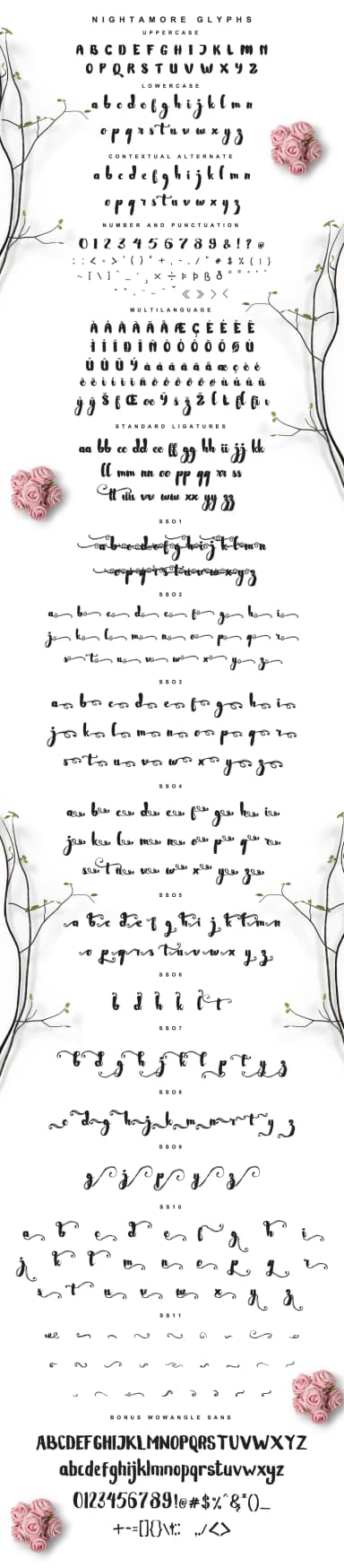
Nightamore by feydesign is a fluid handwritten script that brings organic elegance to contemporary design work. With its flowing letterforms and natural baseline variations, this typeface excels at creating personal, tactile moments in visual communication. The font includes six stylistic alternates alongside a complementary sans companion, giving designers multiple creative directions to explore within a single family. This versatile script performs exceptionally well for wedding invitation suites, where its graceful curves add romance without sacrificing readability. It's equally suited to boutique product packaging, think artisanal tea labels, handmade cosmetics branding, or small-batch food packaging, where handcrafted aesthetics matter. The included swash variants enhance display applications, making the typeface a compelling choice for poster design, greeting cards, and Etsy product listings that demand a sophisticated, human touch. An uppercase variant provides additional flexibility for headlines and accent work across your projects. The multiple stylistic options built into this family mean you can maintain visual cohesion across a project while varying letterforms based on context and emphasis needs. Whether setting body text or creating bold focal points, Nightamore adapts gracefully to your creative direction. Discover the complete potential of this typeface by exploring Nightamore on Creative Fabrica.
Nightamore Font is a script font that shines as a display or heading face. Pair it with a clean sans-serif or serif font for body text β the contrast creates a clear hierarchy while the two styles stay balanced and easy to read.
Nightamore Font
by feydesign